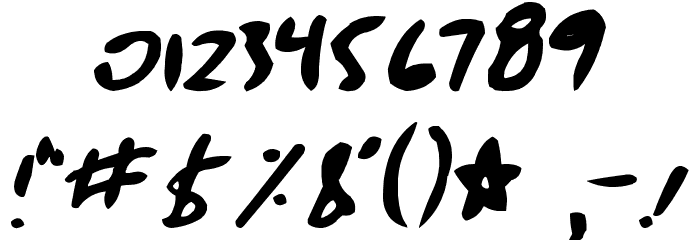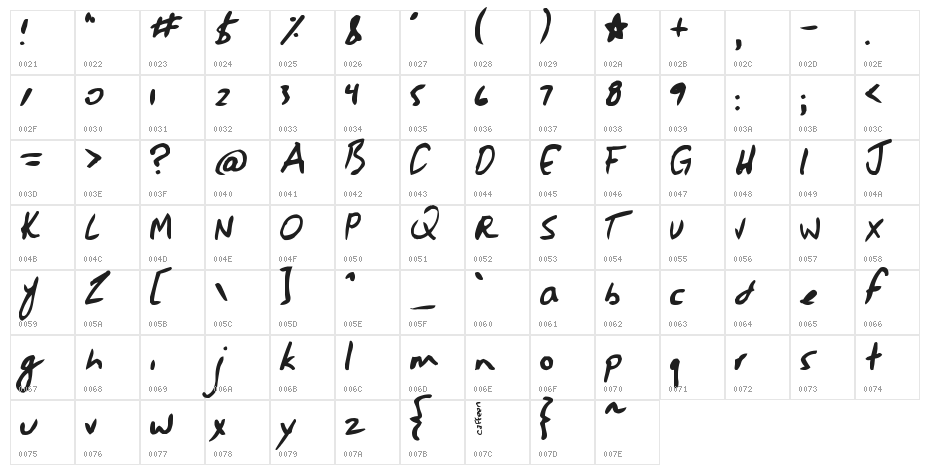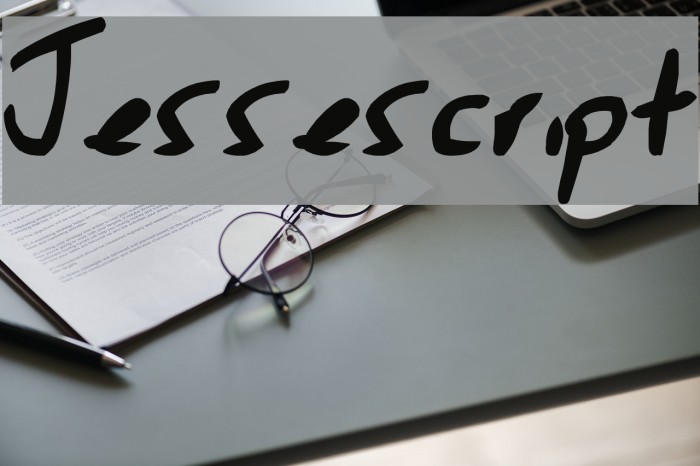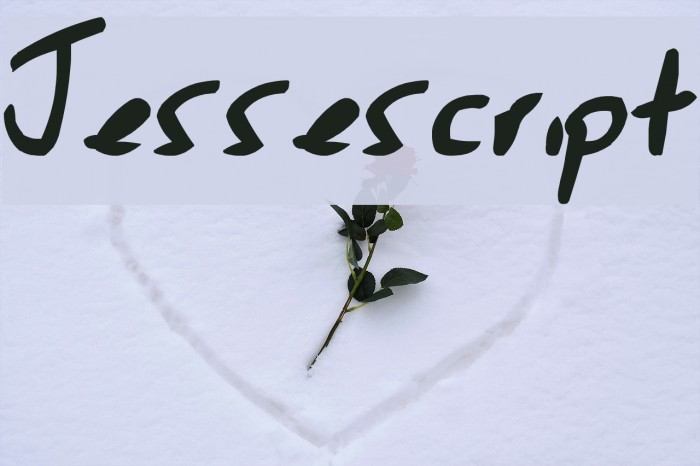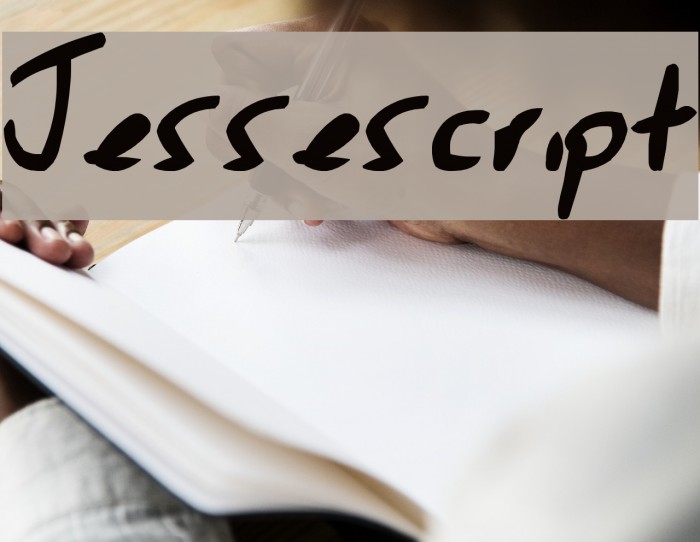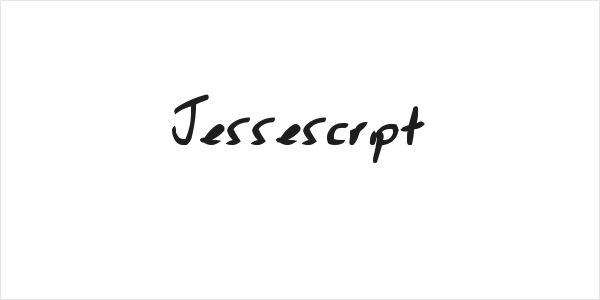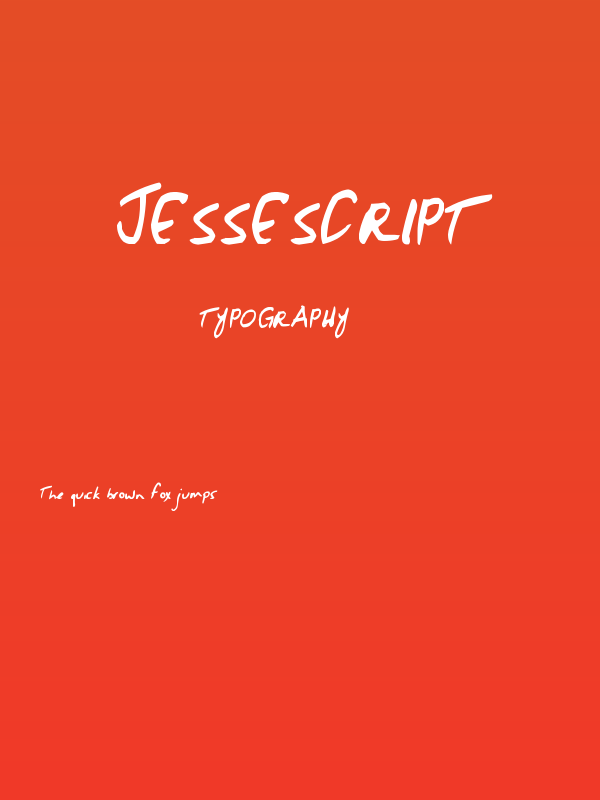
Jessescript Font
Jessescript Description
This font exudes a lively and expressive handwritten style, characterized by its bold and fluid strokes. The uppercase letters are dynamic and slightly irregular, giving a sense of movement and personality. The lowercase letters maintain this energetic flow, with some letters like 'g' and 'y' featuring distinctive loops and tails. The numbers are consistent with the overall style, maintaining the same bold and freeform appearance. Special characters are crafted with the same attention to detail, ensuring they blend seamlessly with the rest of the font. This font is perfect for projects that require a personal touch, such as invitations, greeting cards, or creative branding.
| Overall Style | Expressive, Artistic |
| Use Case | Headlines, Logos, Creative Text |
| Proposed Projects | Ideal for invitations, greeting cards, artistic branding, and creative projects. |